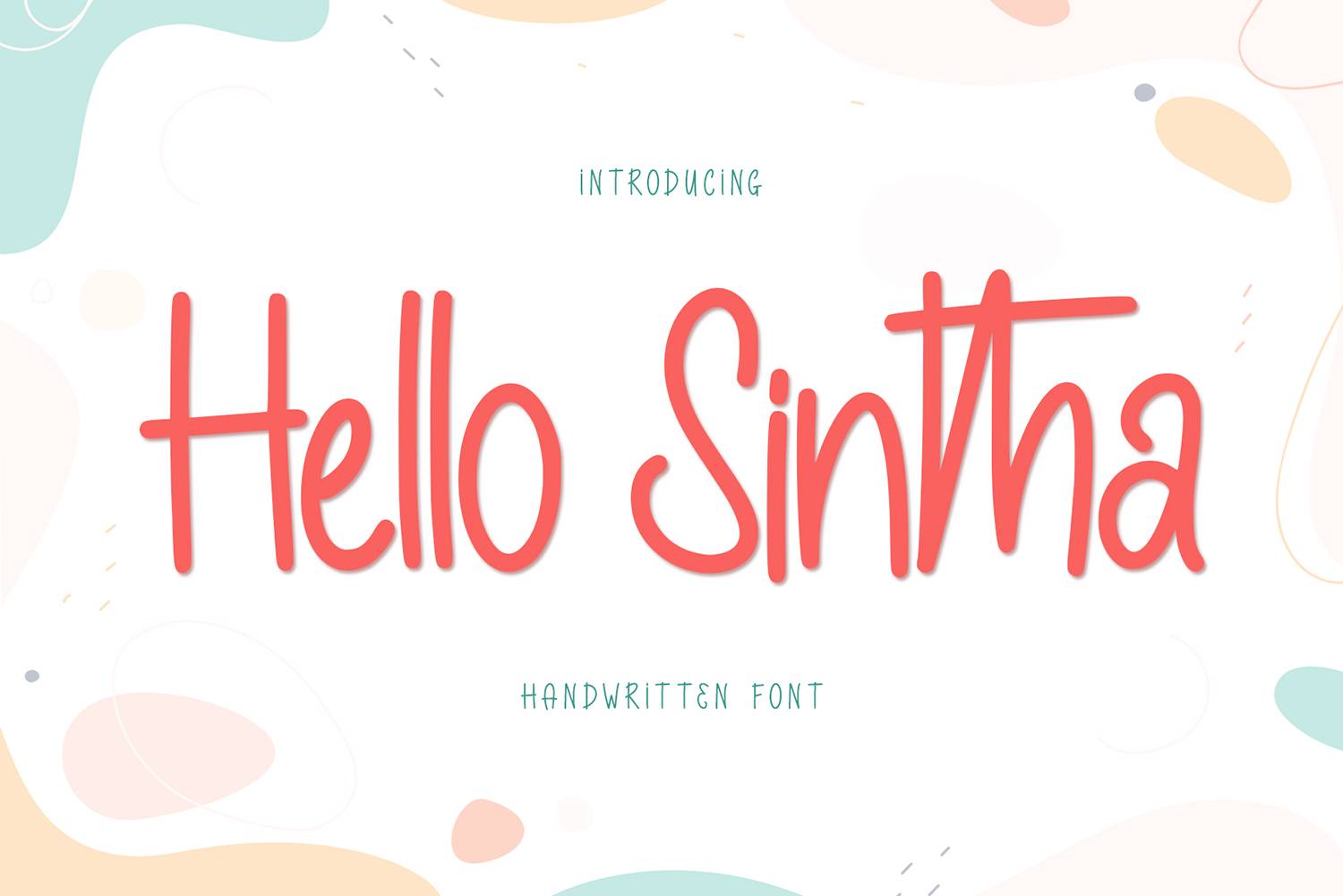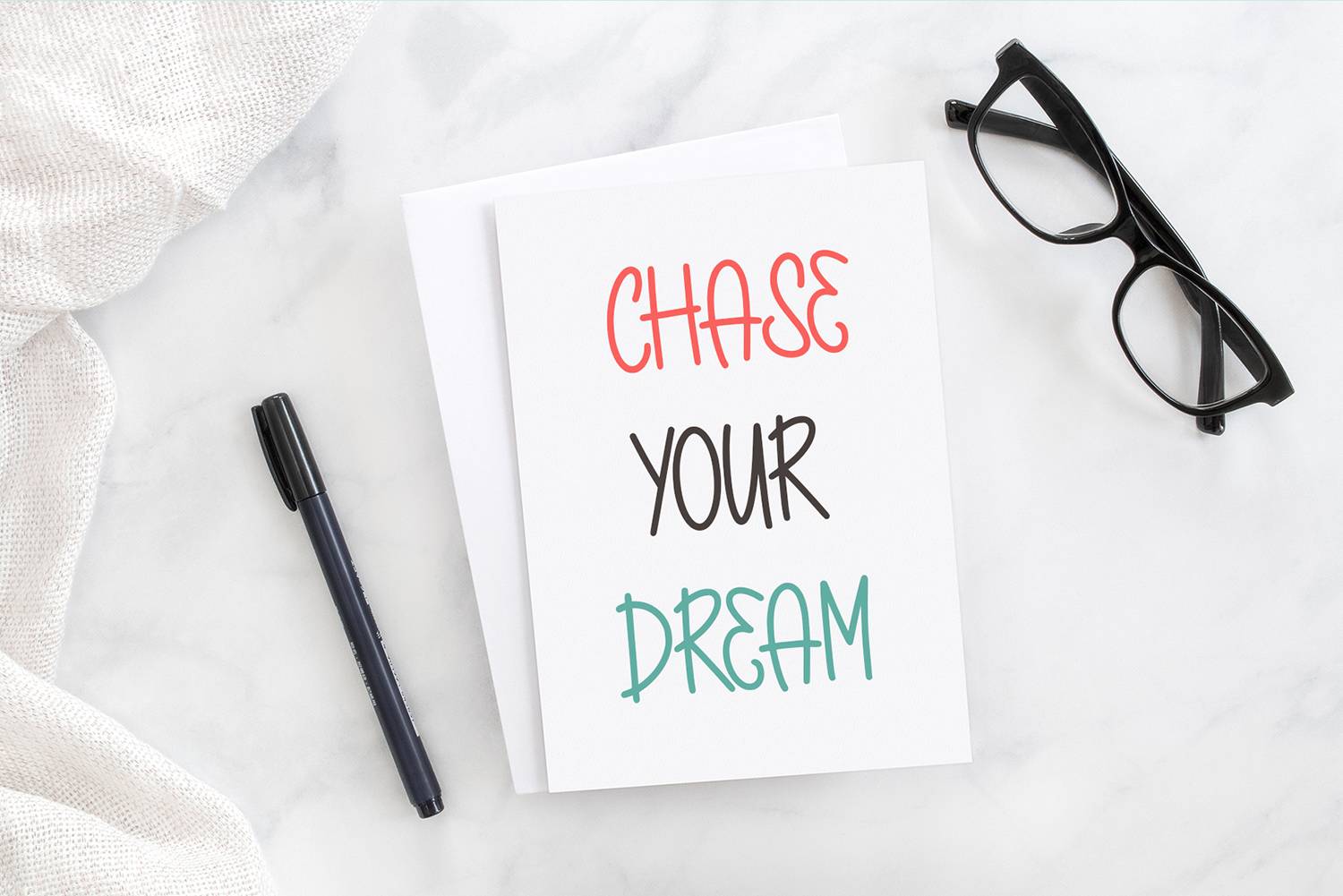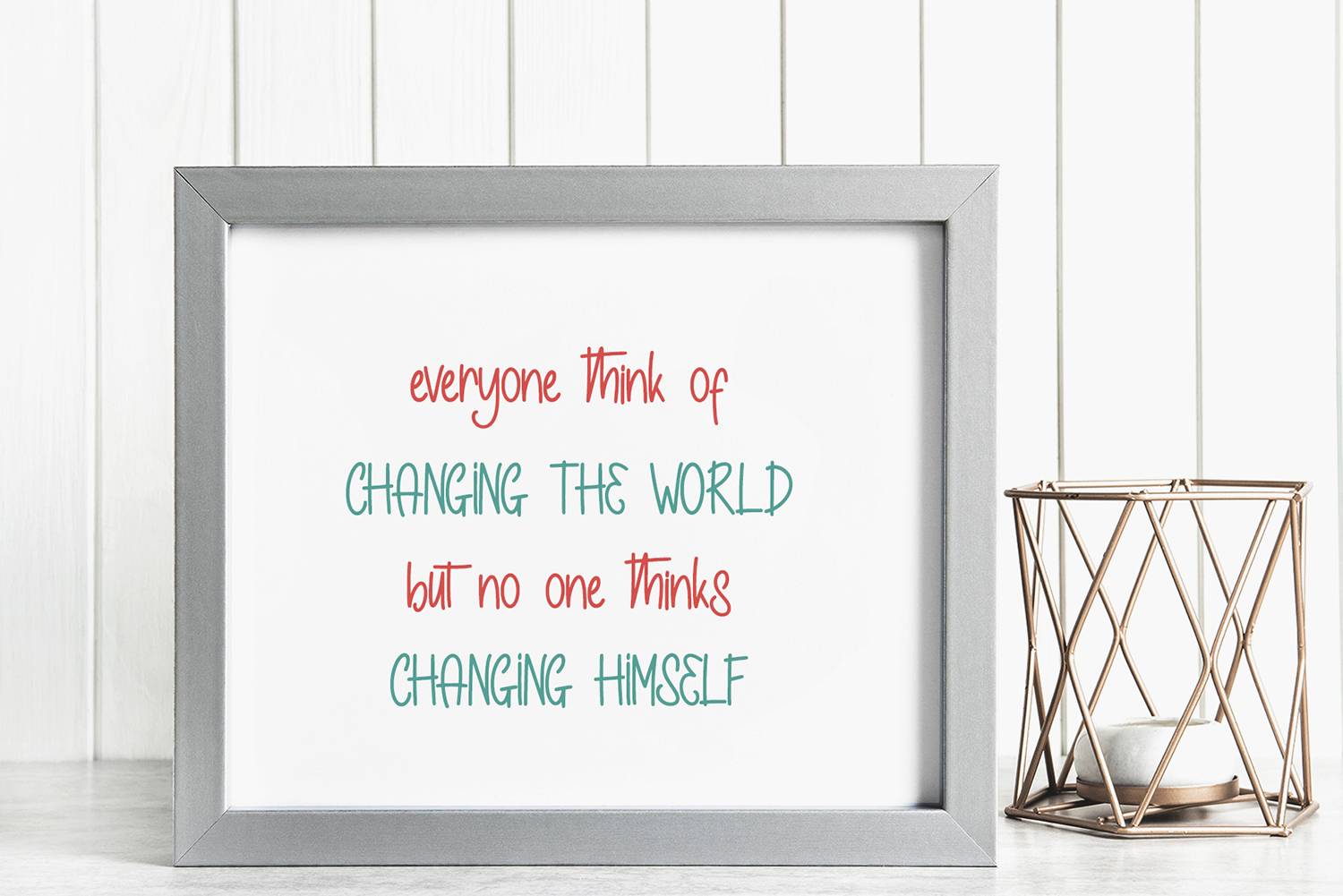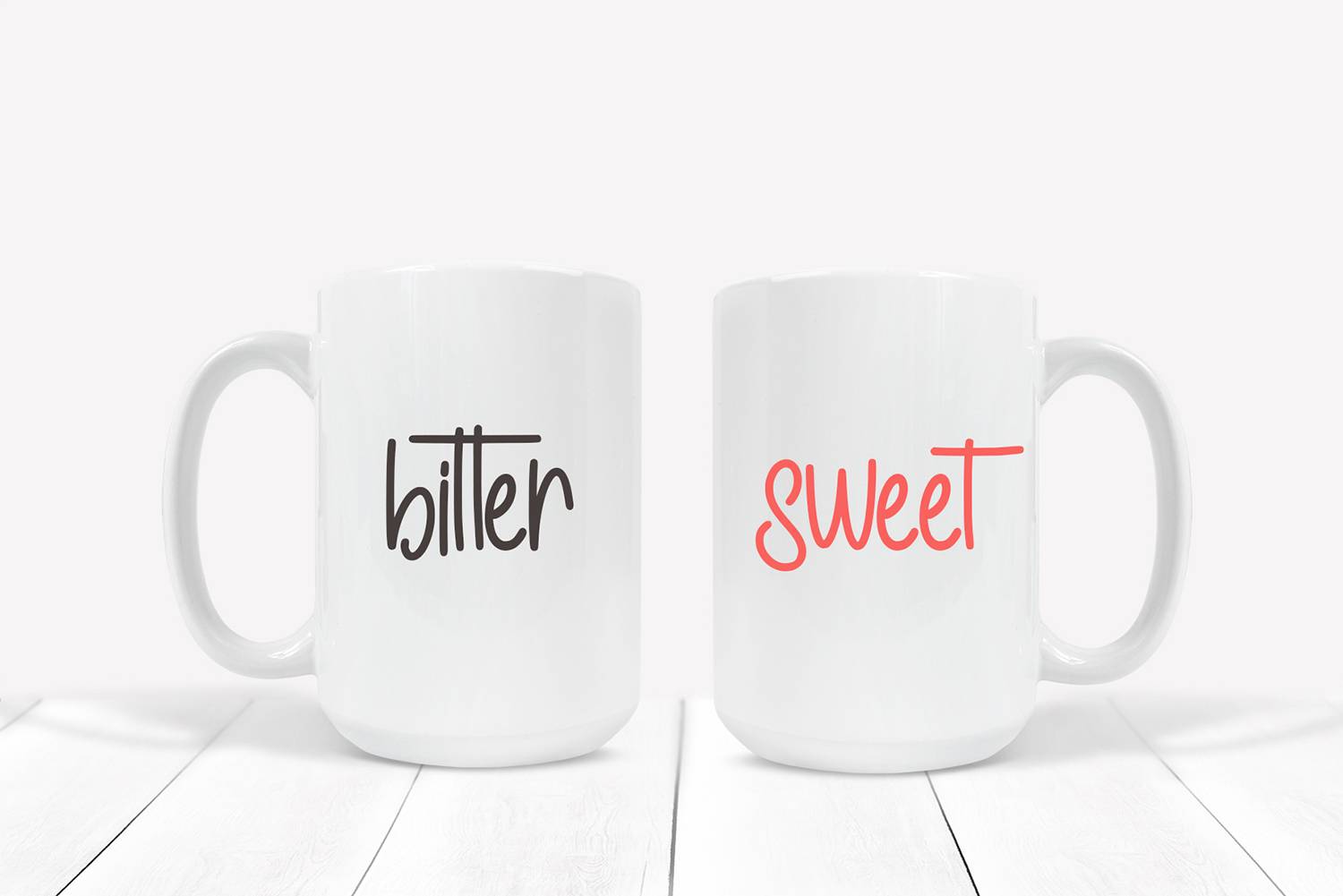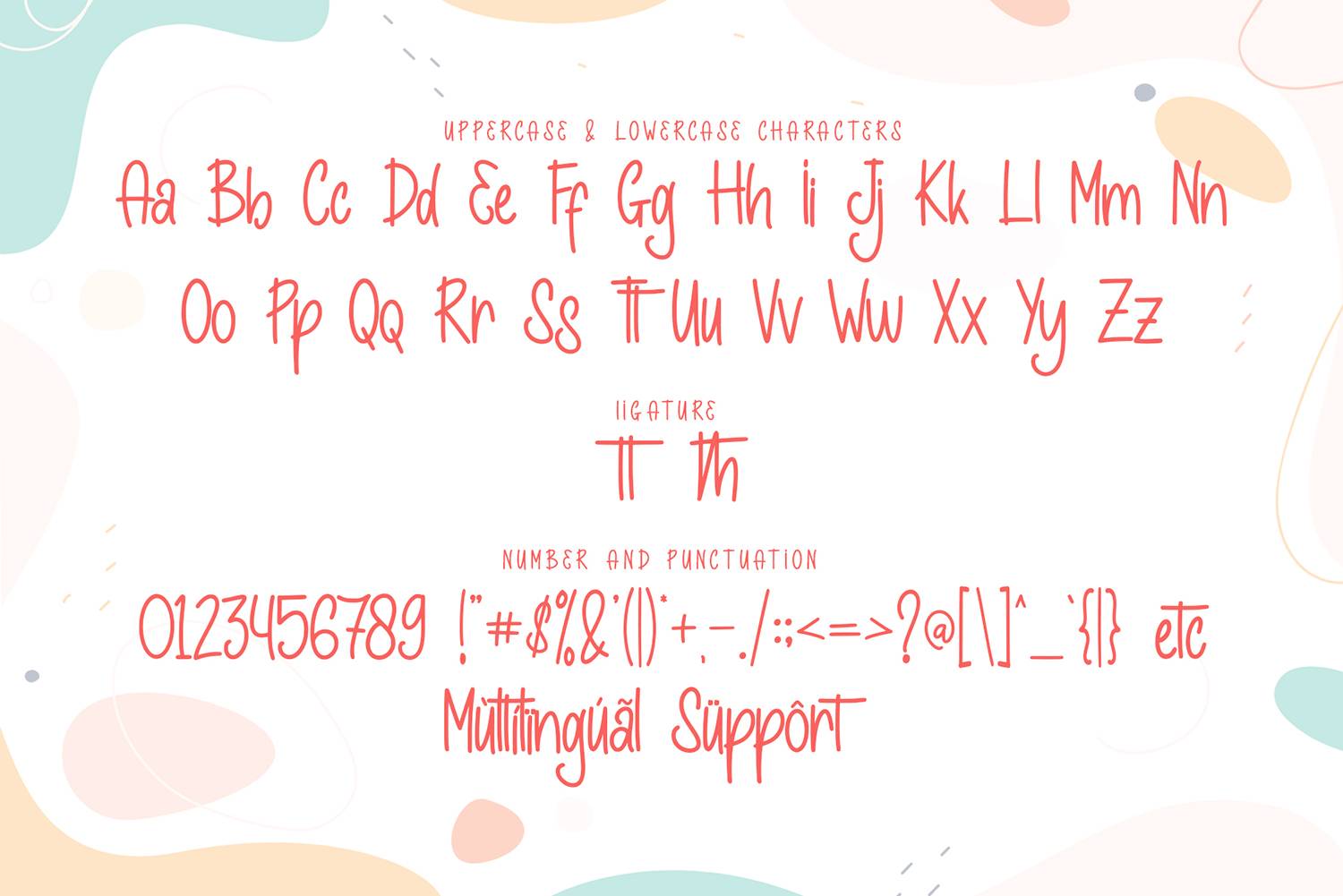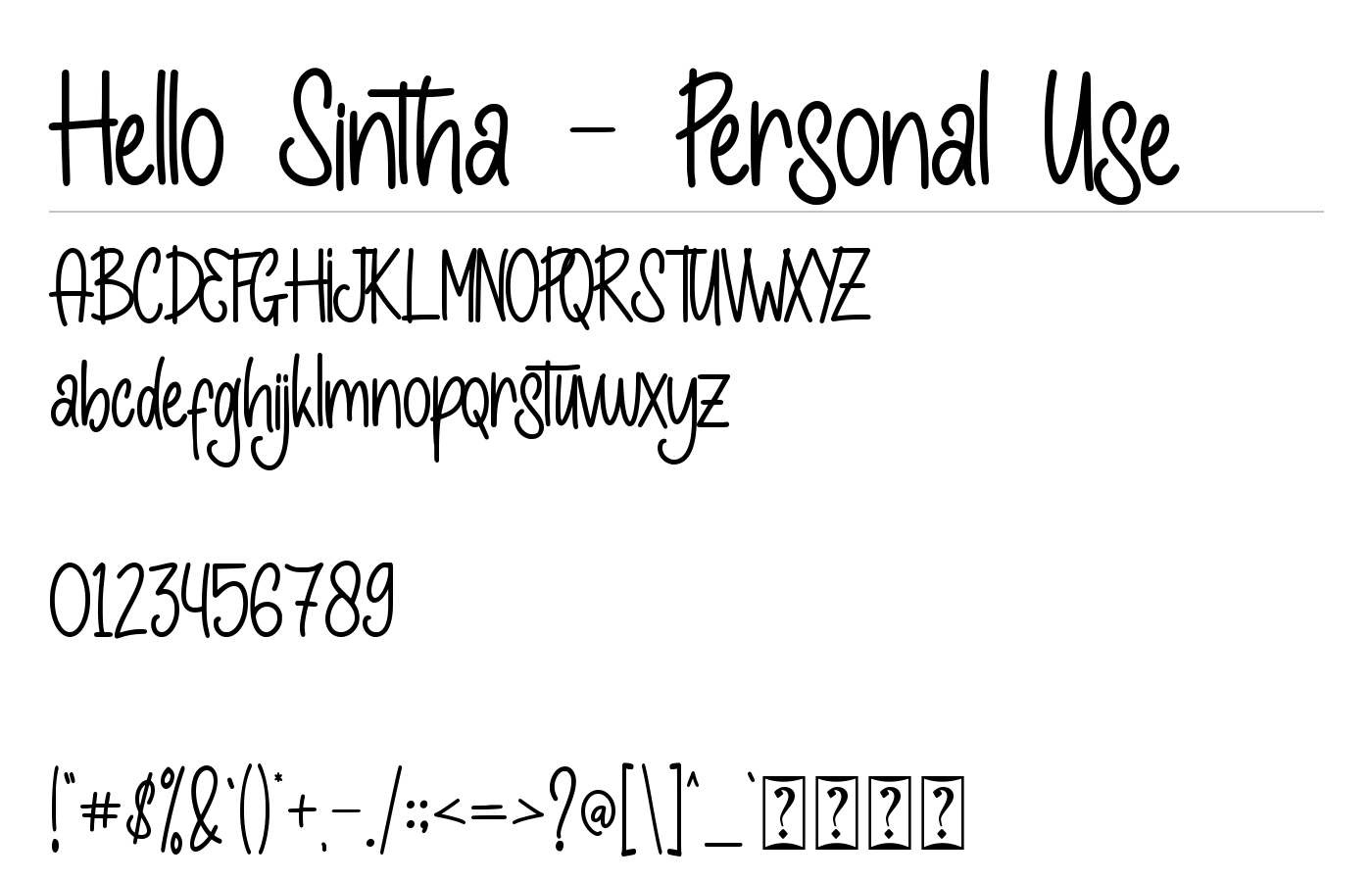
Hello Sintha is a playful, handwritten sans serif font with a tall, narrow structure and a casual, friendly vibe. Its thin strokes and irregular letterforms give it a personal, approachable feel ideal for informal designs, creative projects, and youthful branding. This font works great for headlines, invitations, and any context where a lighthearted, hand-drawn touch is desired.
Hello Sintha Font
About Hello Sintha Font